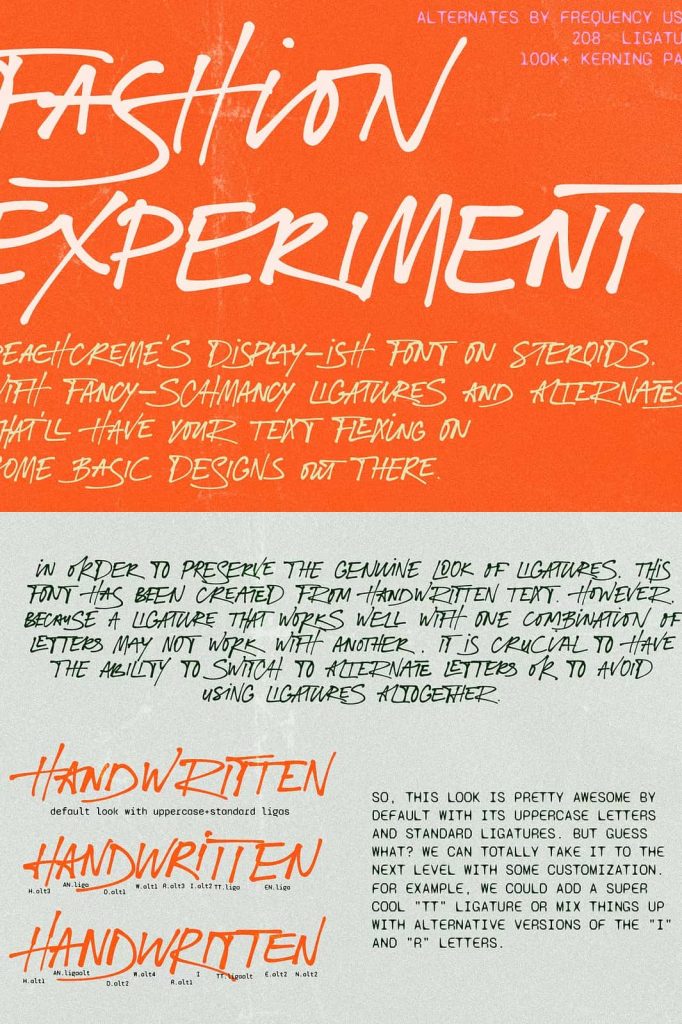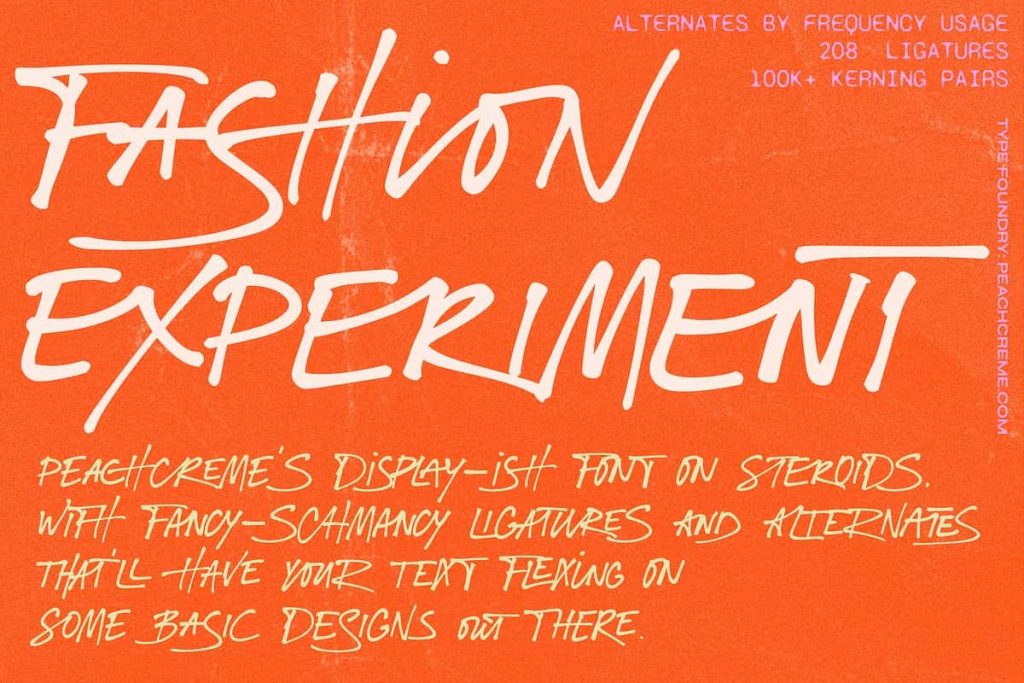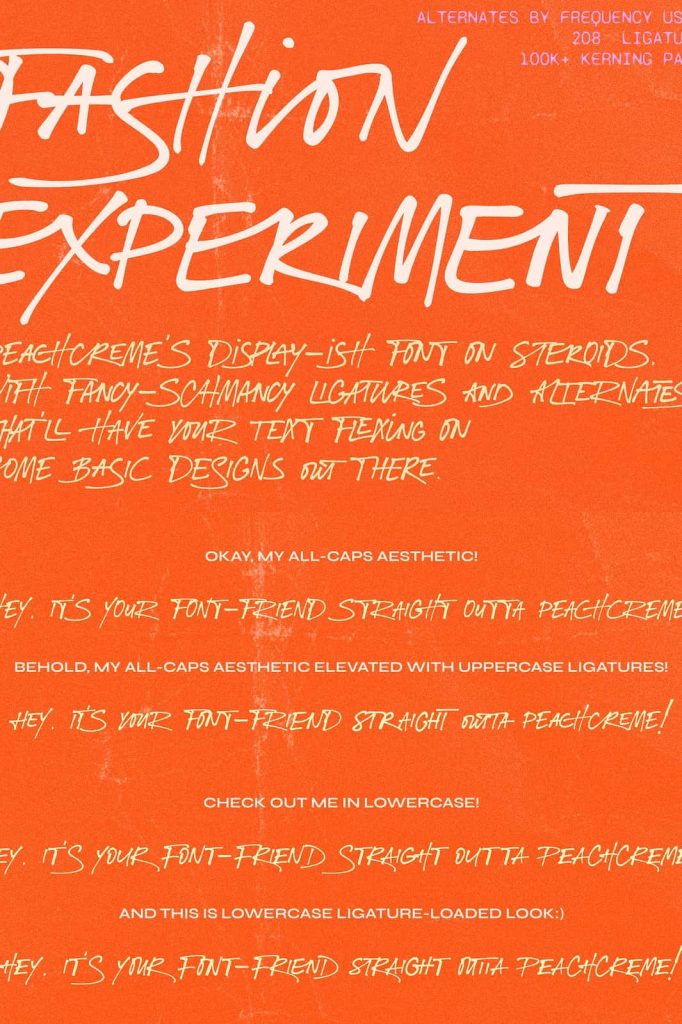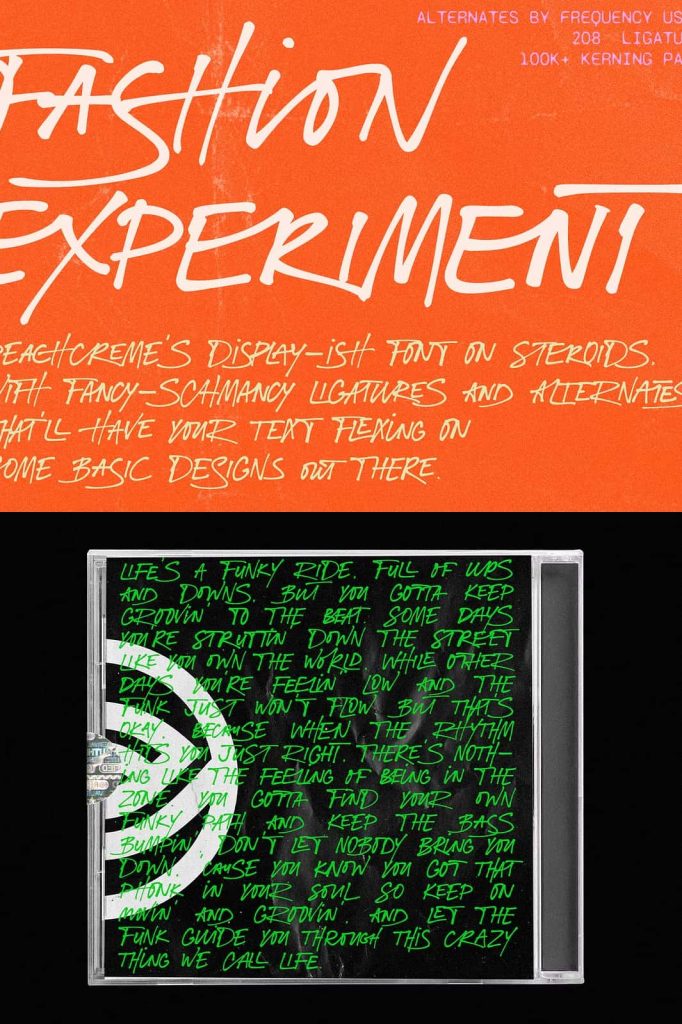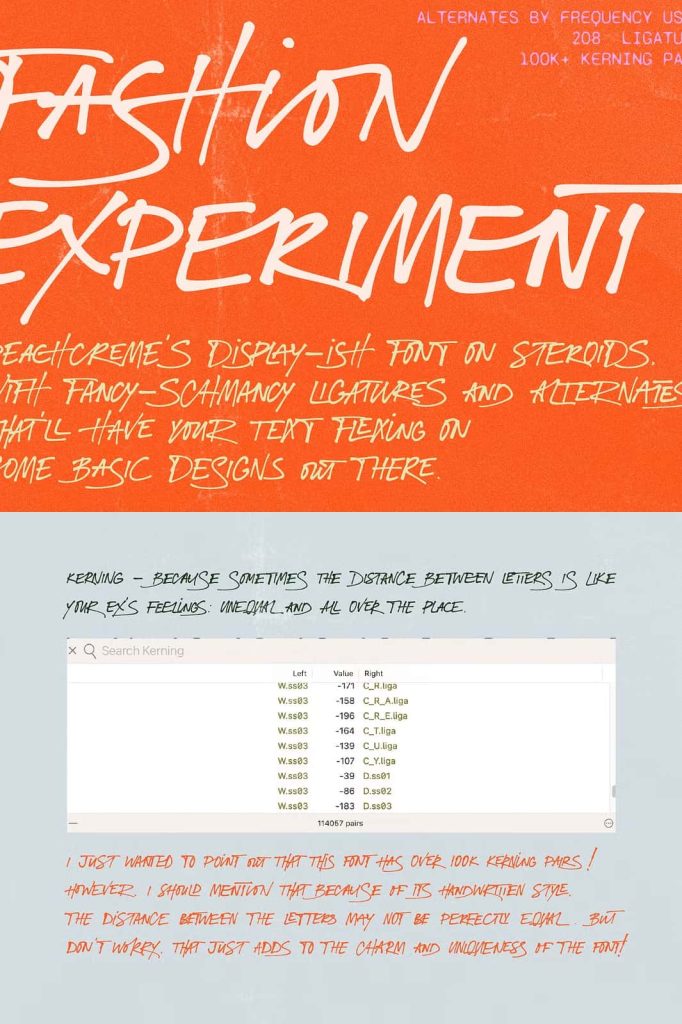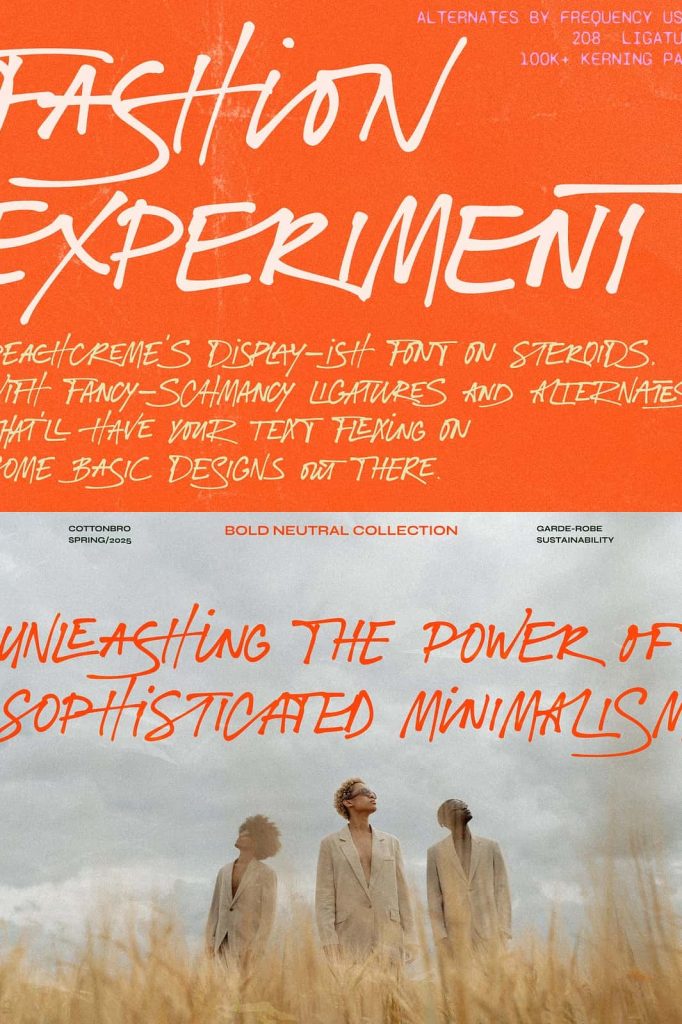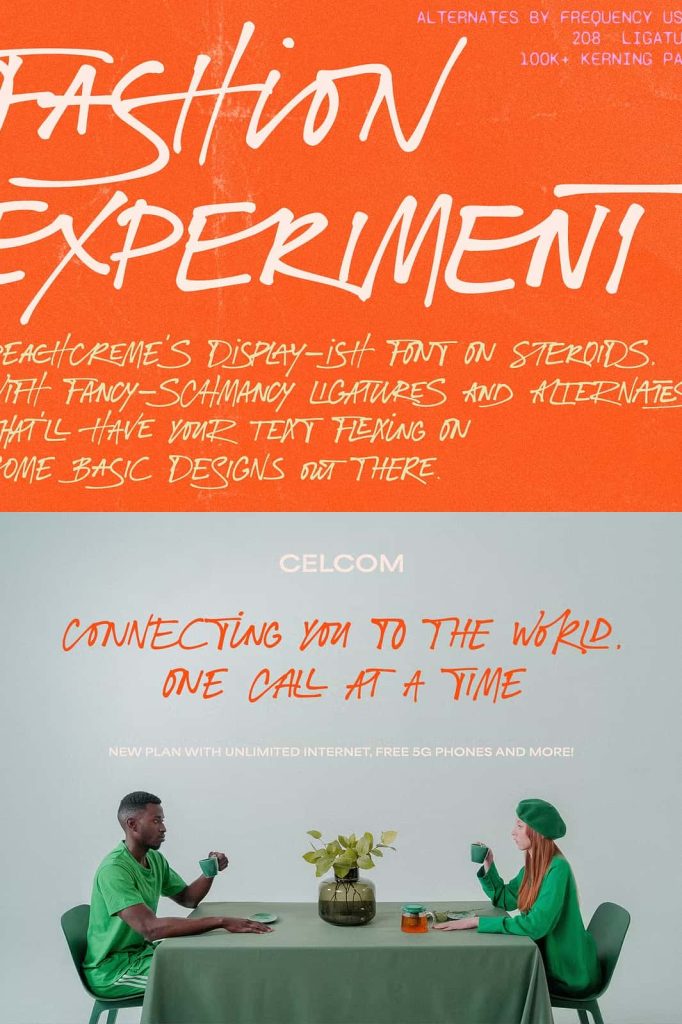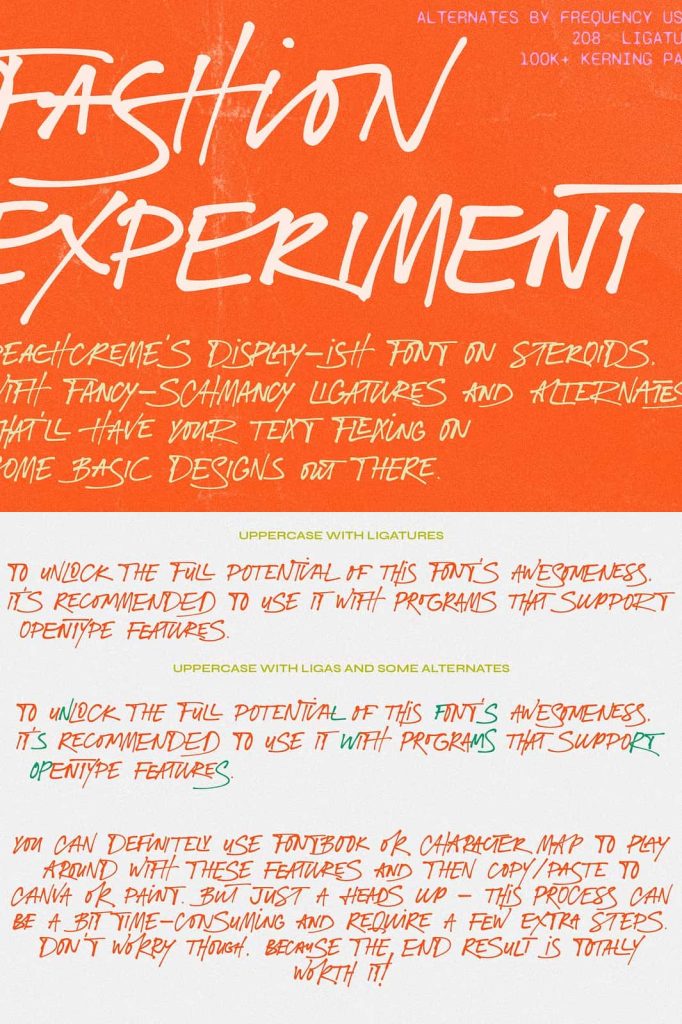
“Fashion Experiment” is an all-caps handwritten display font, featuring a funky and expressive gel pen-style that is perfect for creating impactful header text, poster designs, album covers, product designs, and merchandise.